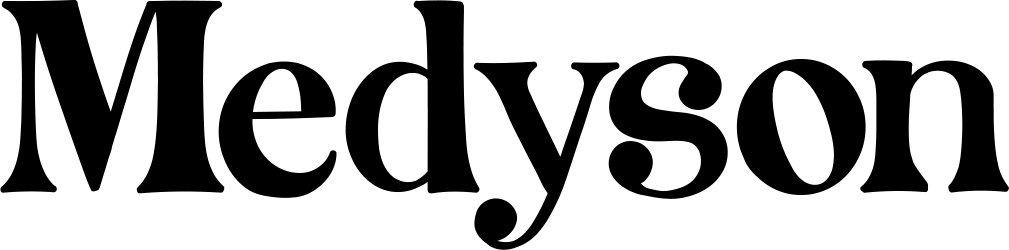
Medyson Font
Medyson is a serif font that is both elegant and bold, and it is distinguished by its smooth curves. You can use this fancy retro font for branding projects, advertising, T-shirts, postcards, and a lot of other things, too. You will not regret it if you include it in your work with confidence.